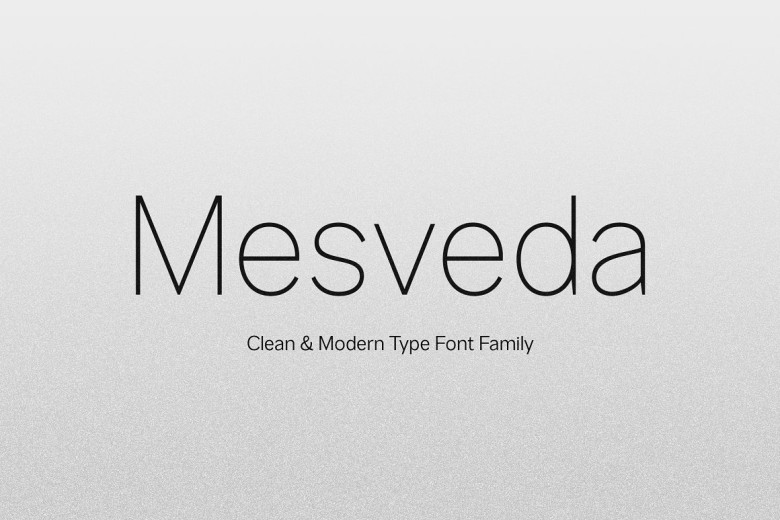
Mesveda Font
Mesveda is an elegant modern sans font family with simple lines and minimalism in mind. Available in 14 weights from thin to bold and italics, Mesveda comes complete with uppercase/lowercase support as well as number/punctuation support, multilingual capabilities and Opentype features – an elegant way to stand out from the competition!
Suits projects such as Web design, UI design, Logos, Branding and Advertising as well as product designs like stationary designs, magazine covers and magazine cover title designs for books, cover titles as well as photography quotes, artwork relating to weddings, Fashion, Special events etc.
Mesveda Sans Serif Typeface